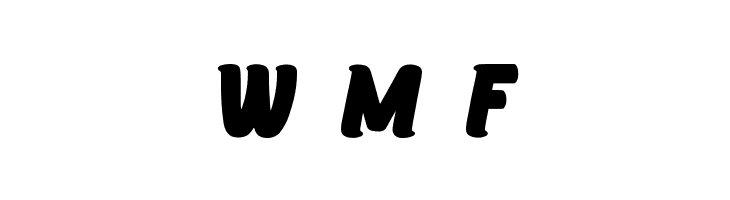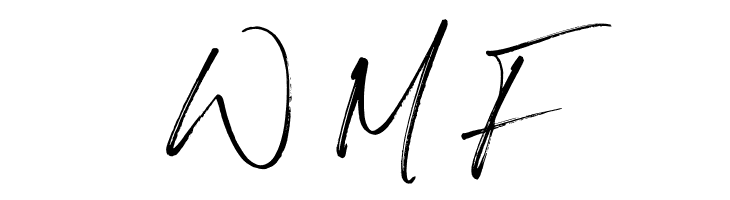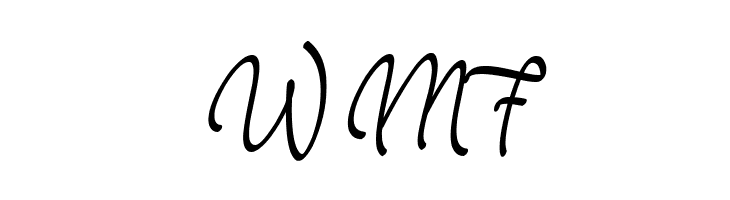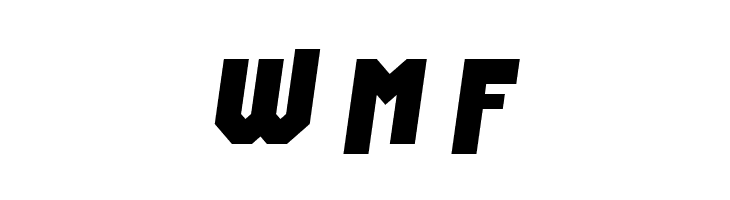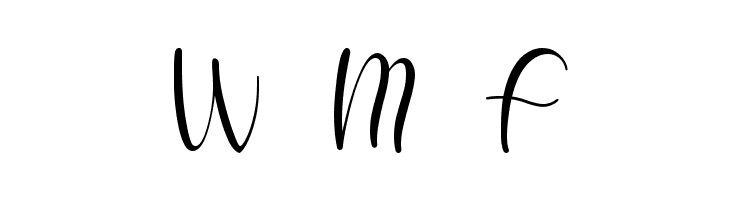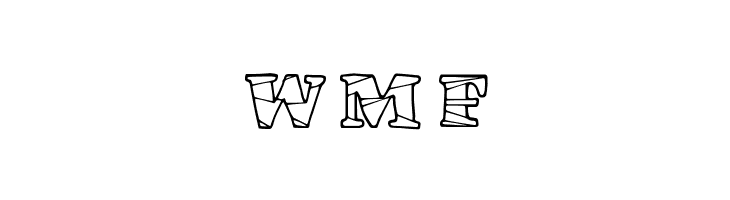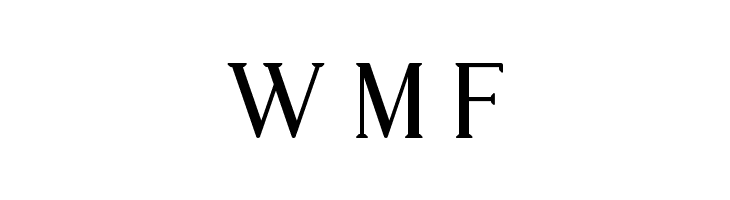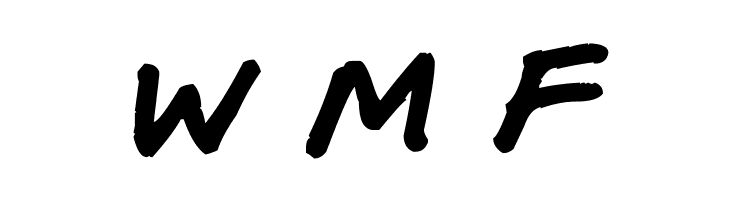
A casual handwritten font with a lively and organic appearance.
A bold, angular font with a modern and dynamic style.
An elegant script font with flowing curves and sophisticated style.
An elegant, flowing script font with a sophisticated, handwritten style.
A playful, handwritten font with tall, narrow letters and a casual, organic style.
A bold, handwritten-style font with a casual, marker-like appearance.
A bold, decorative font with a 3D effect and thick outlines, perfect for creative projects.
A bold, rounded, and playful font with consistent stroke width.
A dynamic and expressive handwritten font with fluid, energetic strokes.